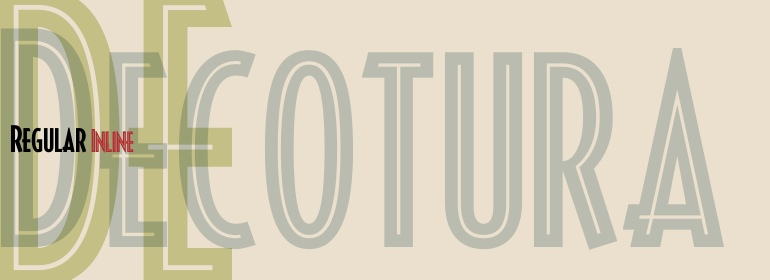
Decotura ICG Font
Decotura ICG Font is perfect for luxury Art Deco branding, elegant hotel signage, vintage-inspired editorial layouts, premium cocktail bar menus, upscale restaurant branding, sophisticated packaging design, glamorous event invitations, and high-end architectural presentations. This distinguished typeface works magnificently in both digital applications and print media where timeless elegance and sophisticated glamour are essential design elements.
What makes Decotura ICG Font so exciting is its exquisite capture of 1920s Art Deco elegance with meticulously crafted geometric letterforms that embody the golden age of design sophistication. The font features striking angular elements, refined proportions, and decorative flourishes that instantly evoke the glamour of the Jazz Age while maintaining contemporary relevance. Its luxurious character and period authenticity make it perfect for brands seeking to communicate exclusivity, refinement, and timeless style to discerning clientele.
The Decotura ICG Font family includes multiple stylistic variations from light to bold weights, along with ornamental capitals and decorative elements inspired by classic Art Deco motifs. Each style maintains the typeface's sophisticated character while offering comprehensive language support, elegant numerals, period-appropriate punctuation, and special ornamental characters designed to enhance luxury communications.
This extraordinary typeface represents the pinnacle of Art Deco revival typography adapted for modern luxury applications. Whether you're developing premium hospitality brands, creating sophisticated fashion campaigns, or designing exclusive membership materials, Decotura ICG Font Free Download provides the refined elegance and prestige needed to attract affluent audiences. The font's Art Deco heritage makes it particularly effective for luxury hotels, fine dining establishments, premium spirits brands, and high-end fashion houses.
The precisely engineered geometry and exquisite details in Decotura ICG Font ensure stunning visual impact while maintaining exceptional legibility across all applications. Its sophisticated presence makes it ideal for headlines, titles, and luxury branding where its full Art Deco splendor can create memorable impressions and establish immediate association with quality, exclusivity, and timeless sophistication.